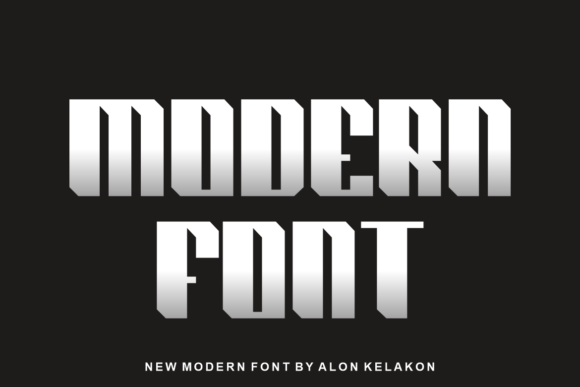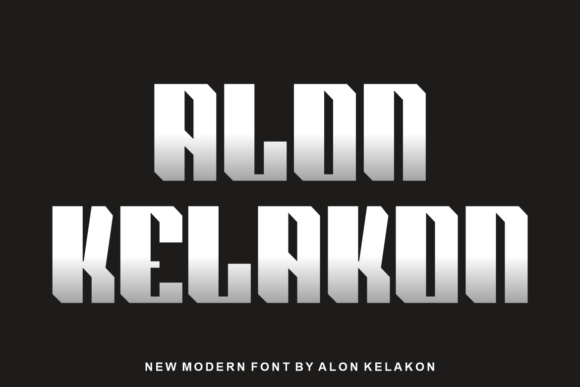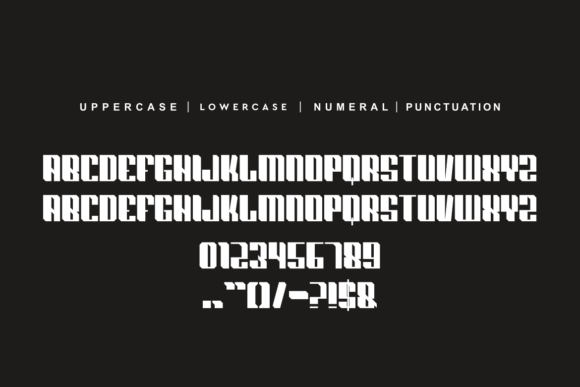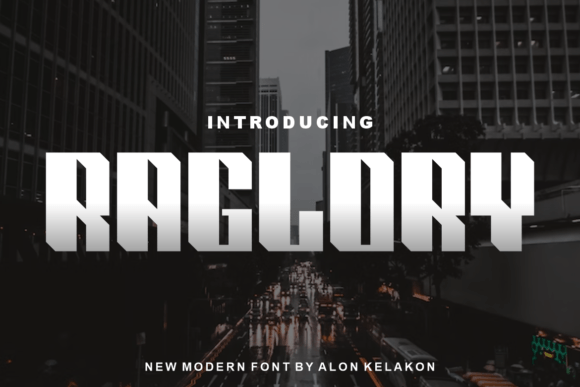
Introduction to Raglory Font
Raglory is a cool and unique display font.
Key Features of Raglory Font
Why Choose Raglory Font?
Raglory Font offers exceptional quality and versatility, making it a valuable addition to your design toolkit. Whether you’re creating for personal projects or commercial use, Raglory Font delivers professional results.